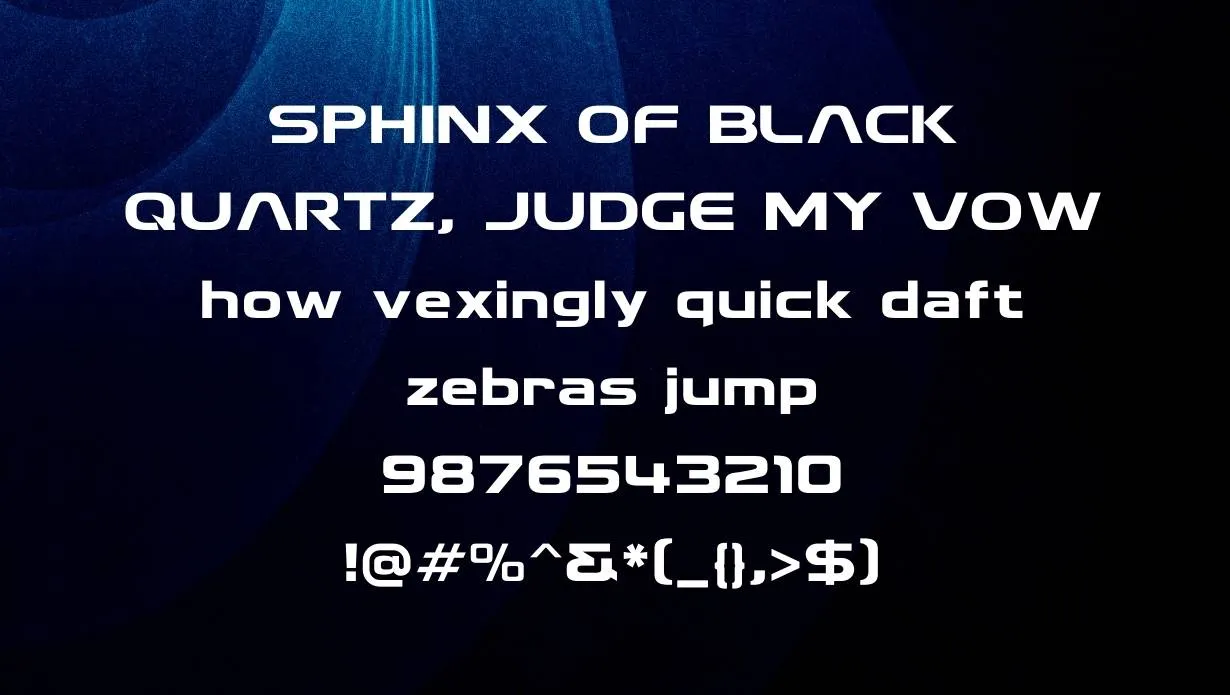
Quivera Font is a display typeface designed by American type designer Frederic Goudy in 1936. The design is based on an earlier Goudy typeface called Kennerley Old Style, which was inspired by the work of 15th-century Italian printer Nicolas Jenson.
This font has an upright posture and is characterized by its high contrast between thick and thin strokes. The typeface is named after the Quivera region of New Mexico, where Goudy lived for a time. You can give your designs a marvelous touch then try to pair eveleth font and make your designs astonishing.
This font was first released by the American Type Founders (ATF) in 1936. It was later revived by digital-type foundry P22 in 2002. Today, this font is used in a variety of contexts, including branding and advertising.
Who Used Quivera Font?
Its distinctive design makes Quivera perfect for headlines and other display purposes. This is a great choice for projects that require a decorative typeface with high contrast between thick and thin strokes. This font has special characters that will provide an extraordinary touch when used with texta font.
Many organizations want to make their project more attractive and professional so they use this font in their headlines. Microsoft word software helps to make attractive resumes or any other professional document. This font is also a good choice for personal projects, such as scrapbooking and invitations.
Quivera Font Family Appearance
Is Quivera a Microsoft font?
No, Quivera is not a Microsoft font. It is a display typeface designed by American type designer Frederic Goudy in 1936.
Can I use Quivera on my Poster?
Yes, the Font can be used on Posters. The font is available in both regular and bold weights and includes support for multiple languages.
Is Quivera Font overused?
The Font has been around for centuries and is still popular today. While it is often used in a design, it has not been overused.